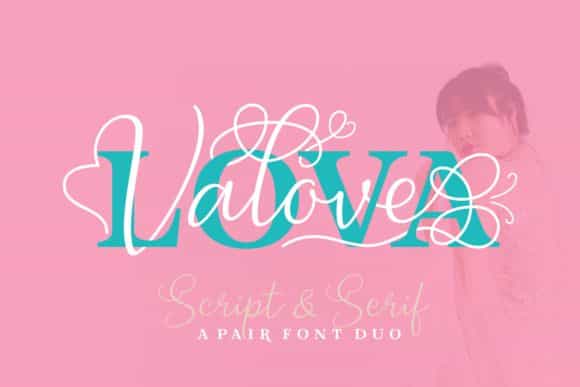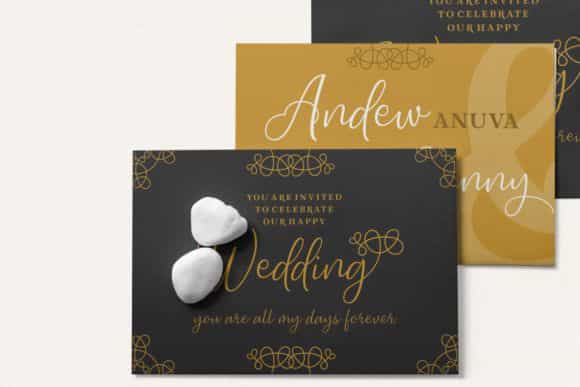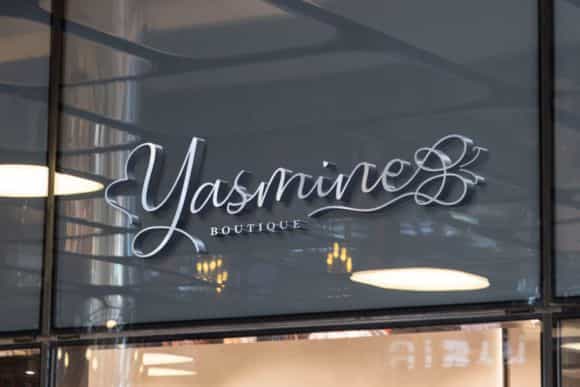
Hello Guys! A font duo of a pair with script & serif font by Situjuh. Lova Valove Font Duo is a font duo which is one of its kind. It sports a beautiful script and an impressive serif version. The script version comes with the beautiful swashes and romantic hearts, while the serif version will make your designs look bold and striking. You can combine both versions and the design will be outstanding, but they are also strong as stand-alones.